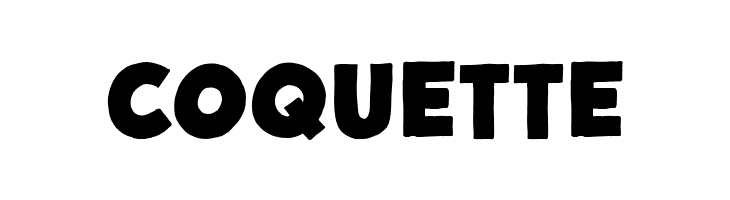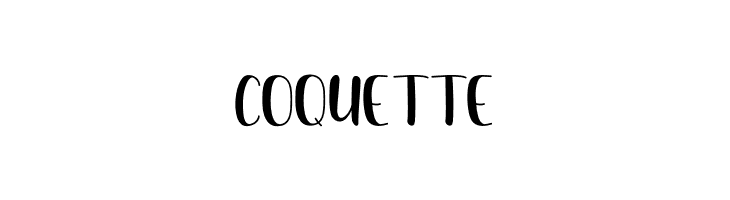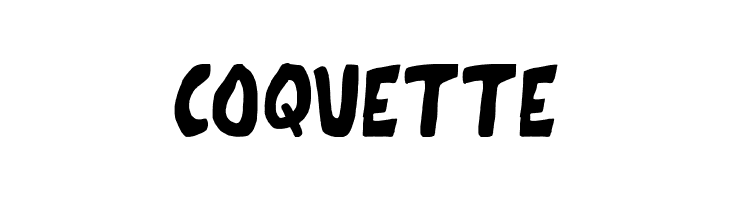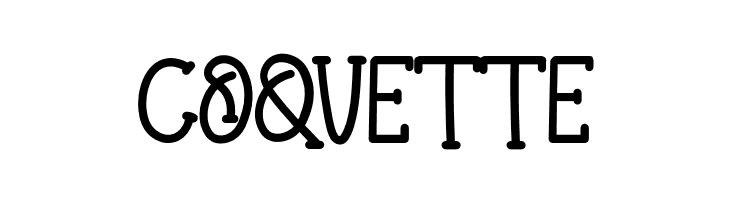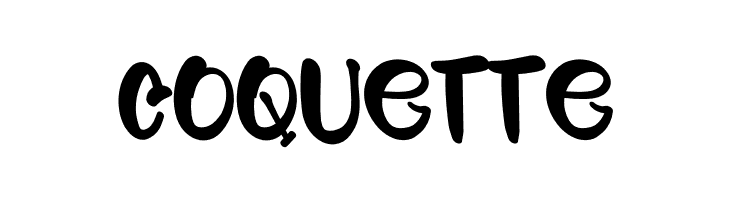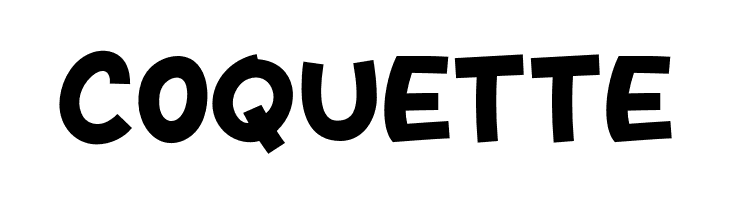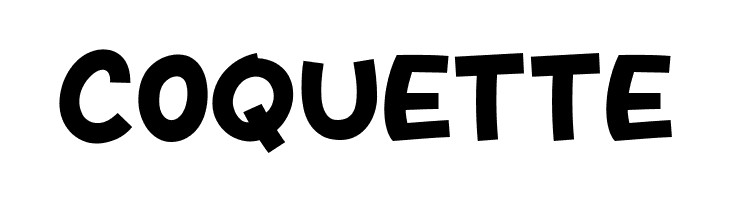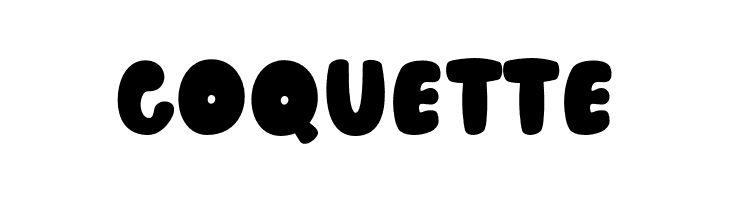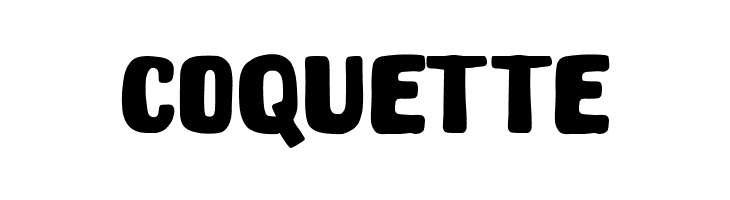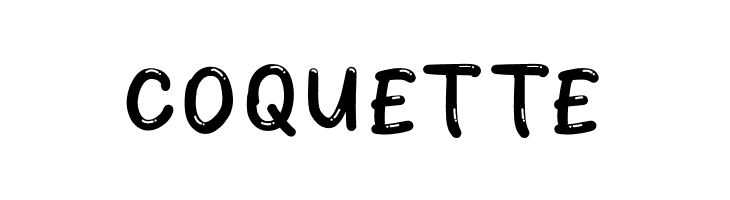
A playful, bold, and whimsical hand-drawn font with a festive feel.
A bold, playful font with rounded, hand-drawn characters.
A playful, hand-drawn font with a whimsical, rustic style.
A playful, hand-drawn font with outlined characters and a whimsical style.
A bold, decorative font with an old-school, hand-drawn style.
A bold, rounded, and playful font with a hand-drawn feel.
A bold, playful font with rounded, bubble-like characters.
A modern sans-serif font with a slightly condensed style and medium contrast.
A bold serif font with a classic yet modern aesthetic.
A bold, playful font with rounded, bubble-like characters.
A bold, textured font with a rugged, vintage appearance.
A playful, bold font with rounded edges and a hand-drawn feel.
A bold, playful handwritten font with thick strokes and rounded edges.
A bold, rounded font with a playful and dynamic style.
A bold, rounded font with a playful and friendly style.
A playful, hand-drawn style font with rounded, irregular letterforms.
A playful, modern handwritten font with smooth curves and a lively appearance.
A bold, hand-drawn font with a playful and energetic style.
A bold, handwritten font with playful, rounded strokes.
A bold, playful font with thick, rounded strokes and a whimsical style.
A bold, playful font with rounded edges and a hand-drawn feel.
A playful, bold font with rounded, thick strokes and a whimsical style.
A bold, playful font with exaggerated curves and a whimsical style.
A bubbly, bold display font with rounded edges and playful character.
A bold, playful font with rounded edges and a slightly condensed style.
A bold, playful font with rounded edges and a modern vibe.
A playful, bold font with rounded edges and a friendly style.
A playful, bold font with rounded, thick strokes and a whimsical style.
A bold, playful font with exaggerated curves and a lively appearance.
A bold, playful font with a quirky, cartoonish style.